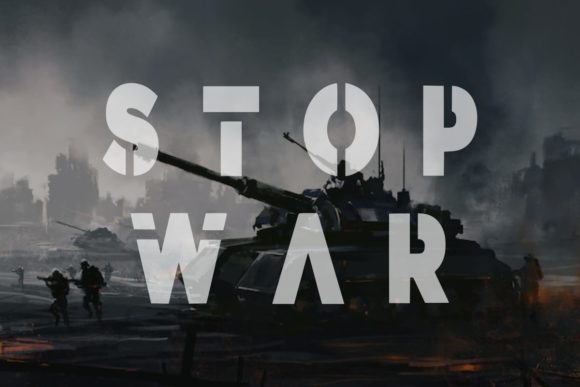
Force Army Font
Force Army is a strong and bold-looking display font. It features a dynamic effect and a unique charm. It is perfect for headlines, sporting events, text effects, Army posters, logos, or monogrammed designs.